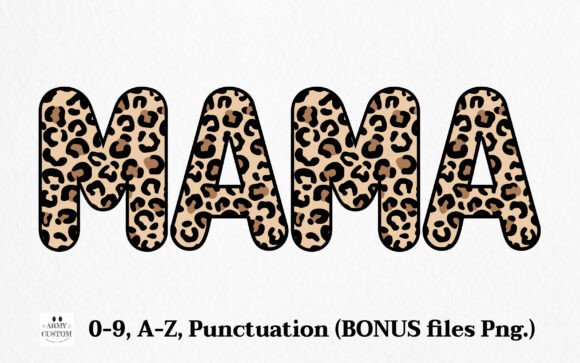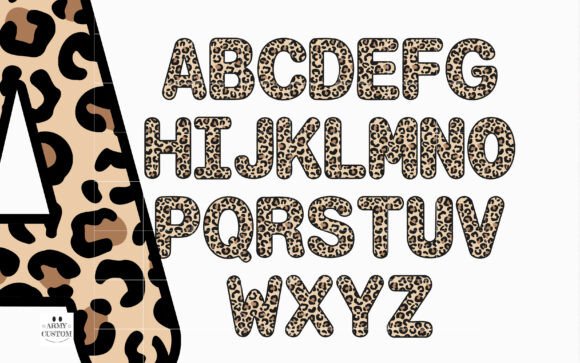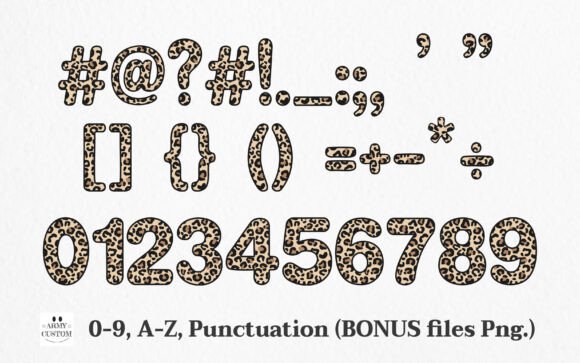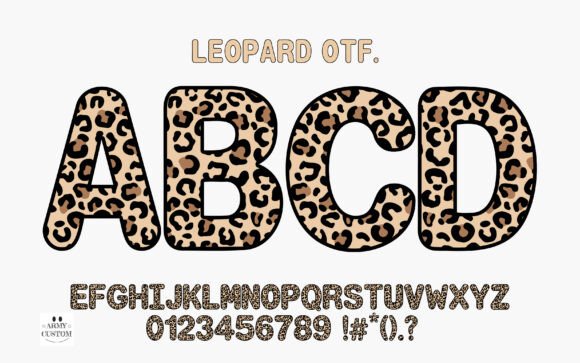
Unleashing the Wild Side of Design: A Deep Dive into Army Leopard Font
I still remember the day I stumbled upon the Army Leopard Font while working on a project that required a bold, eye-catching typography. I had been searching for the perfect font for hours, trying out different styles and combinations, but nothing seemed to fit the bill. That was until I saw the leopard print pattern of Army Leopard Font, and I knew I had found the one. In this article, I’ll share my experience with this unique font, its features, and how to make the most out of it in your design projects.
A Honest Review: The Good and the Quirks
What I Love About Army Leopard Font ✨
- Unique and bold design that’s sure to grab attention ✅
- Perfect blend of elegance and playfulness, making it versatile for various design projects 🎉
- High-quality, crisp lines and detailed leopard print pattern 🔍
- Supports OpenType features, glyphs, and stylistic alternates for advanced typography 📚
The Story Behind Army Leopard Font: A Designer Inspiration
The Army Leopard Font was inspired by the wild and free-spirited nature of the leopard. The designer wanted to capture the essence of this majestic animal and translate it into a typographic masterpiece. The result is a font that’s both elegant and playful, perfect for designers who want to add a touch of wild sophistication to their projects.
| What OpenType features and glyphs are available in Army Leopard Font? | The font supports various OpenType features, glyphs, and stylistic alternates, allowing for advanced typography and customization |